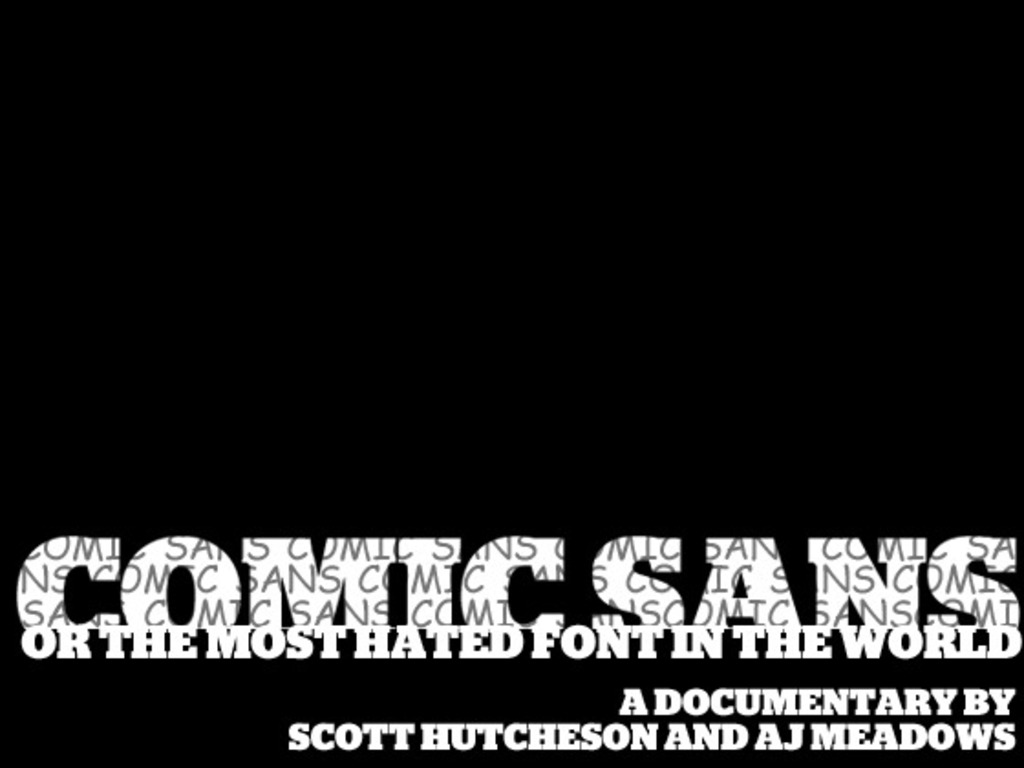
I watched Helvetica a couple of years ago and was bored to tears. Not that it wasnt a great documentary, but they managed to bore me, while also informing me, about my favorite typeface. Then I got the idea to make a mockumentary about 1 designer who was absolutely in love with Comic Sans. I was going to play that designer. I spent many nights tossing and turning in my bed, waking up with cold sweats at the thought of championing this typeface. How could I possibly call myself a designer and still pretend to love such nasty font? I couldn't.
So here we are, 2010 and Comic Sans is still being widely used. People that don't know about typefaces love it, and designers all collectively hate it, but where did it come from? Who created it? Why is it still being used so much? Those are the exact reasons why we are setting out on a journey to uncover the nasty truths behind the worlds most hated font: Comic Sans.
Here is a quick teaser trailer we put together for this Comic Sans Documentary: http://vimeo.com/14690711